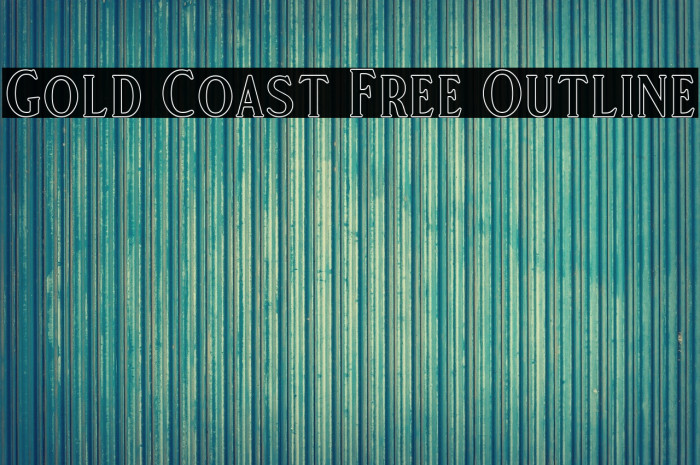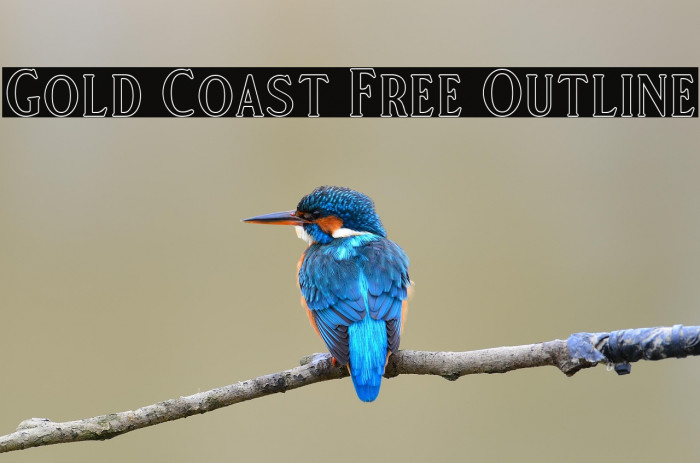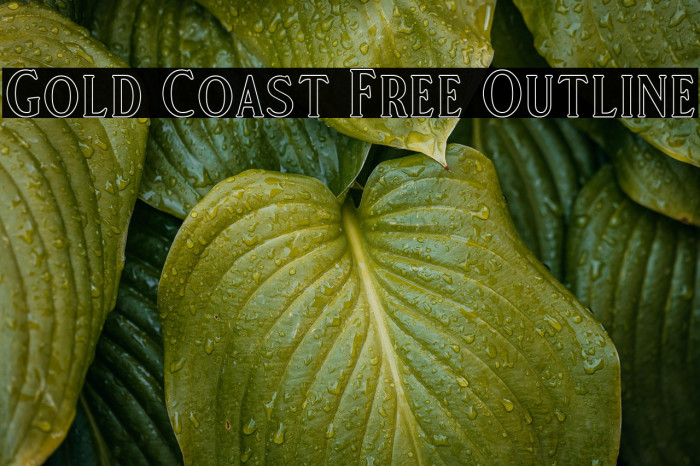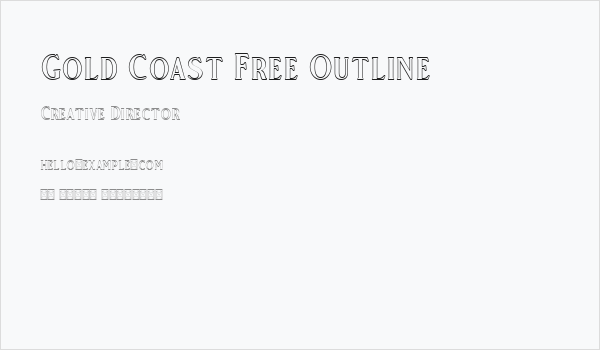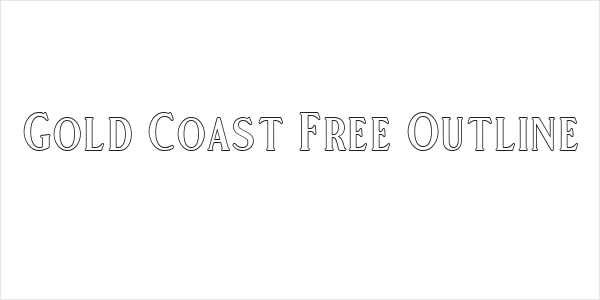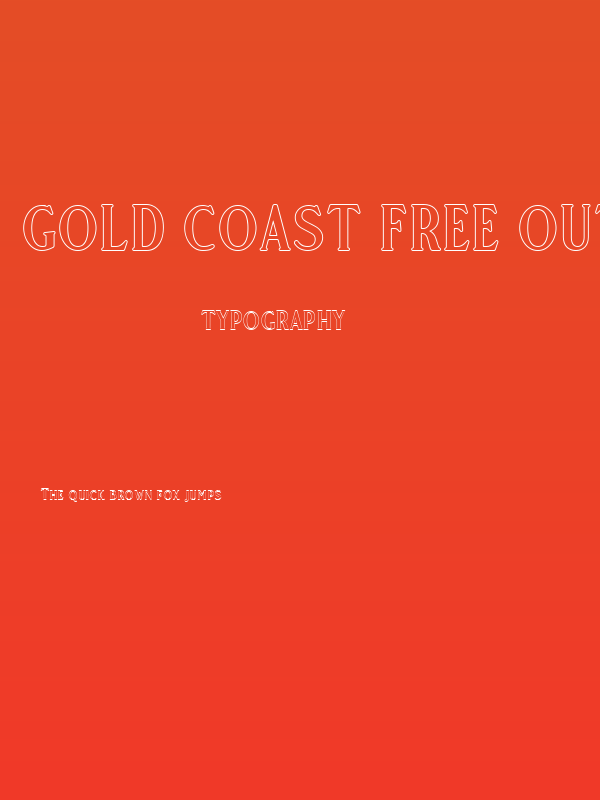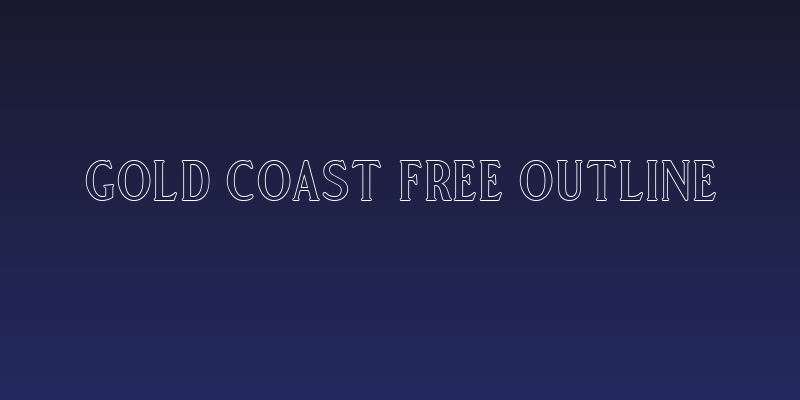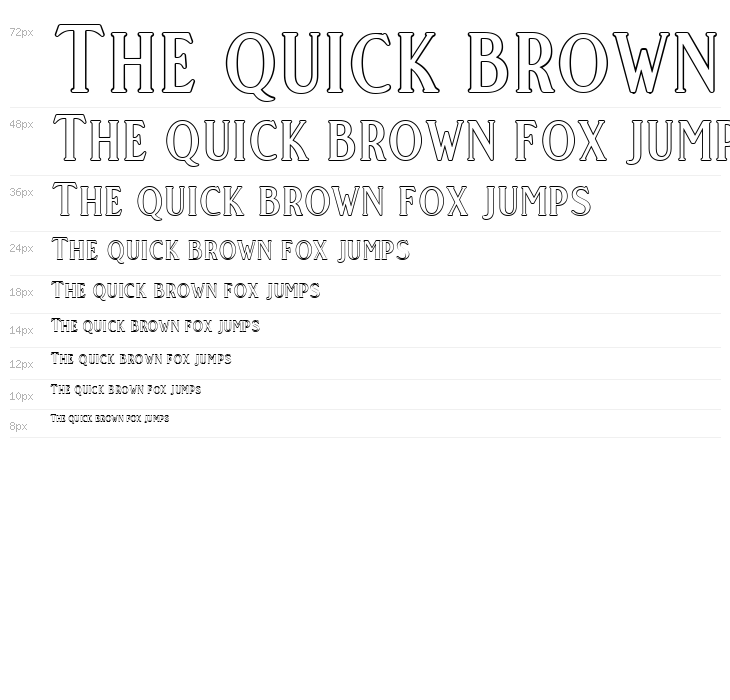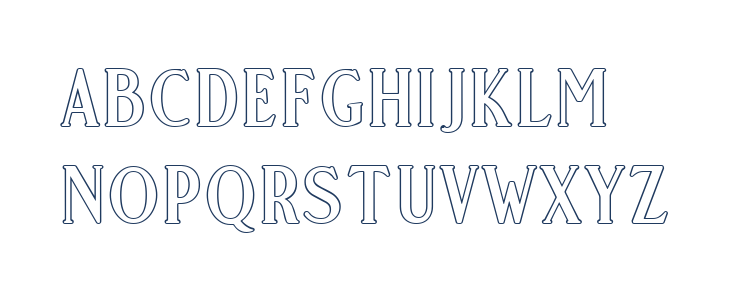
Gold Coast Free Outline Font
Gold Coast Free Outline Description
This font features a clean and elegant outline style, characterized by its open and airy design. The uppercase letters are uniformly structured, offering a sense of balance and symmetry. The strokes are consistent in width, providing a harmonious look across all characters. The font's outline nature gives it a modern and sophisticated appearance, making it suitable for various design applications. Its simplicity and clarity ensure readability while maintaining a stylish edge.
| Proposed Projects | Ideal for branding, logos, headlines, and decorative purposes where a modern and stylish look is desired. |